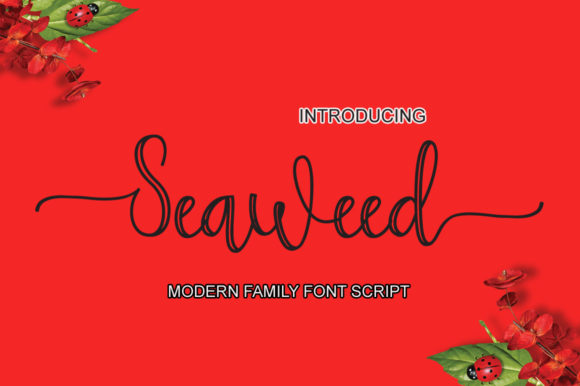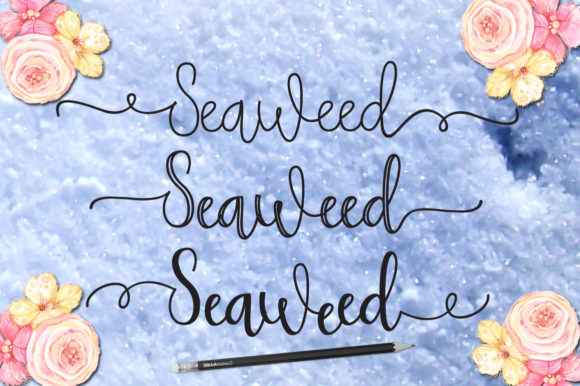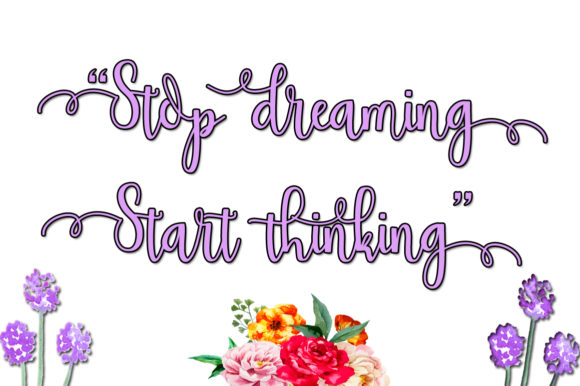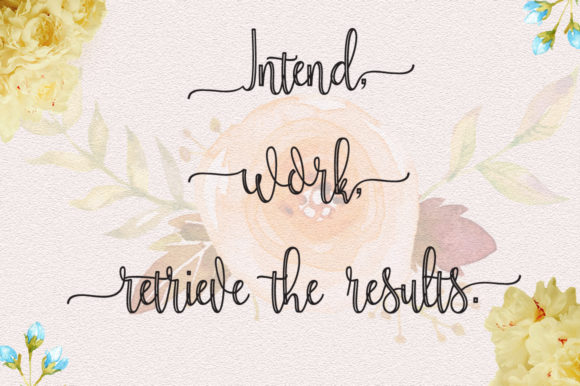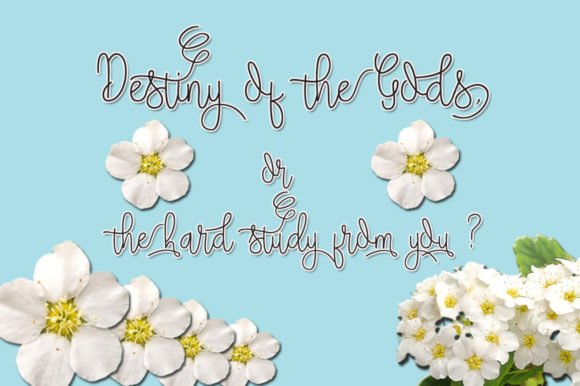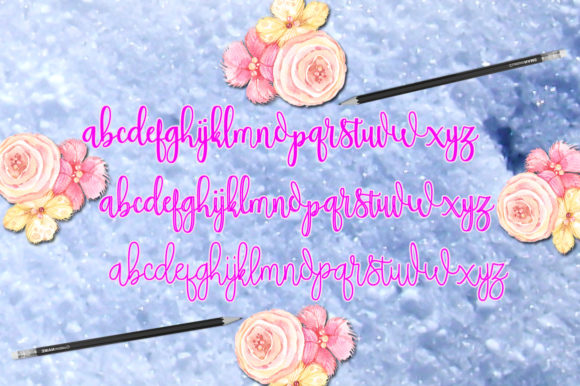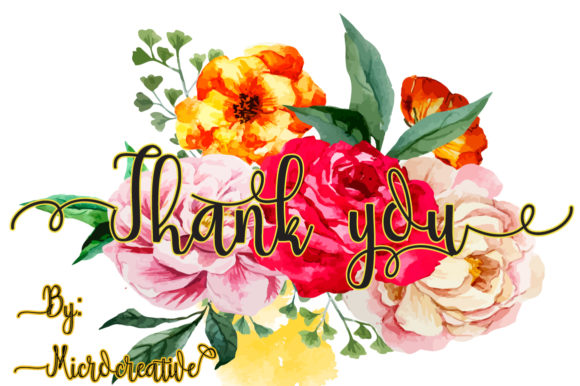
Seaweed Font
About Seaweed Font
Seaweed is a modern and simple handwritten font with lots of authentic charm! It will turn any crafts project into a true stand out!